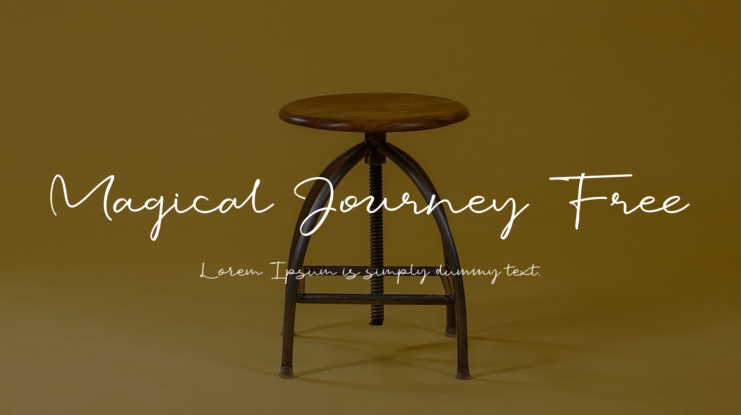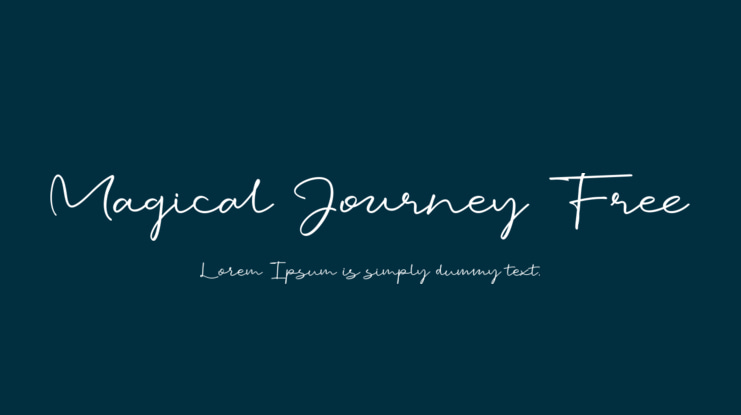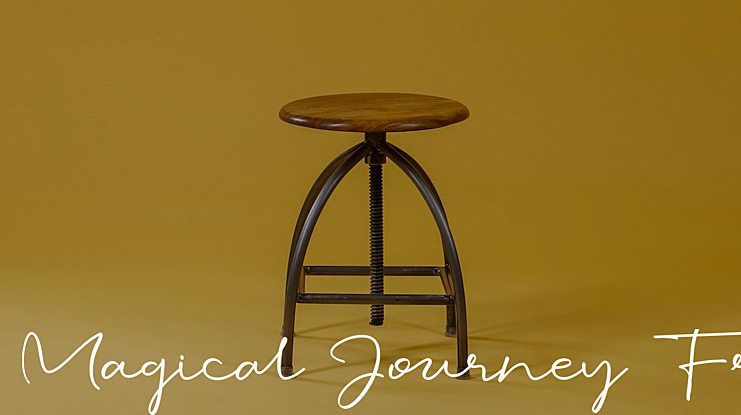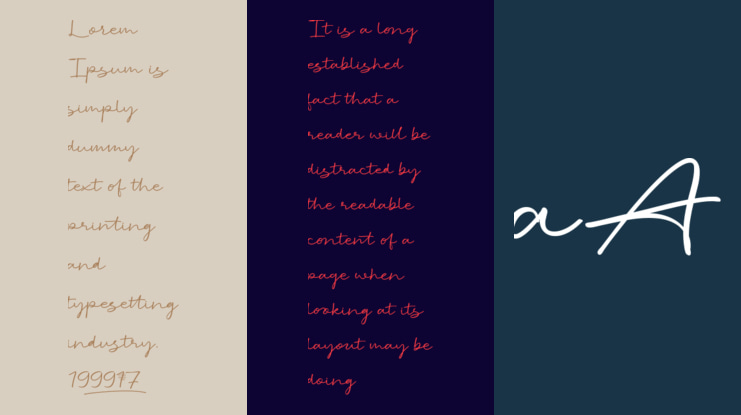
"Magical Journey" is a captivating handwritten script font that invites you to embark on a whimsical adventure through its enchanting curves and graceful strokes. This font captures the essence of imagination and wonder, with each letter carrying the secrets of a fantastical realm waiting to be explored.
With intricate details and flowing lines, "Magical Journey" captures the spirit of curiosity and excitement, making it the perfect choice for projects that seek to infuse a touch of magic into every word. Let this font be your guide as you set forth on a typographic expedition filled with creativity and charm.
The "Magical Journey" font was designed to resemble a natural handwritten script, featuring over 33 opentype ligatures, stylistic alternates for both uppercase and lowercase letters, as well as a variety of head and tail swashes, underline swashes, and decorative elements such as arrows and scribbles.
Accessing the alternate glyphs, swashes, ornaments, and underlines is made easy by using ligatures. Simply try it out in the font preview tool. For example, type "+" in front of the original letter to access a stylistic alternate, or type "-" followed by a number to access different underline swashes.
Head/beginning swashes can be accessed by typing "$" followed by a number, while tail/ending swashes can be accessed by typing "%" followed by a number. Ornaments can be accessed by typing "@" followed by a number.
The "Magical Journey" font is also PUA encoded, allowing you to easily access all of the glyphs and swashes.
Features of this font include uppercase and lowercase letters, numbering and punctuation, multilingual support, ligatures, beginning and ending swashes, underline swashes, stylistic alternates, contextual alternates, and ornaments.